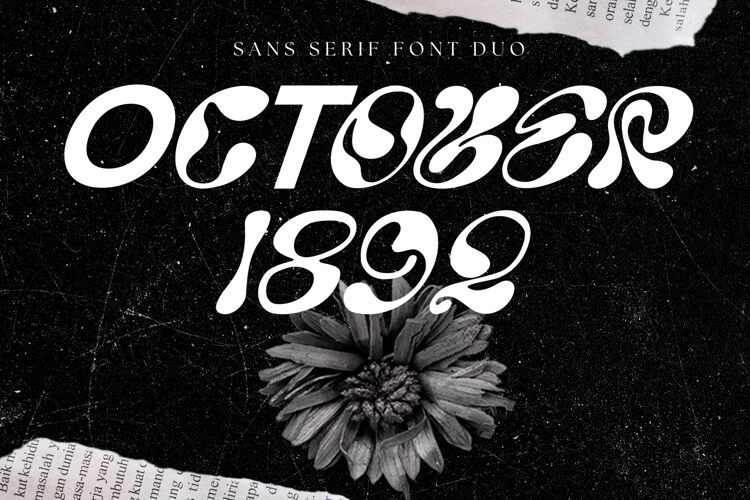
October 1892 font family, designed by 177Studio, is a free font that embodies a groovy and decorative style. It brings an ornamental, swirled essence to your typography, creating expressive and artistic designs. This font adopts an organic style with a bold aesthetic, making it dynamic and experimental in appearances.
October 1892 blends curvy letterforms, artistic details, and playful lines for roleplaying game typography, comic book aesthetics, magazine and newspaper headlines, movie title cards, album covers, posters, packaging projects, and related projects, headings for youthful audiences, album art, or season's greetings.